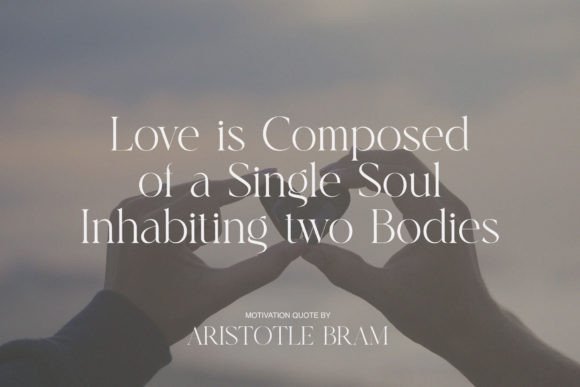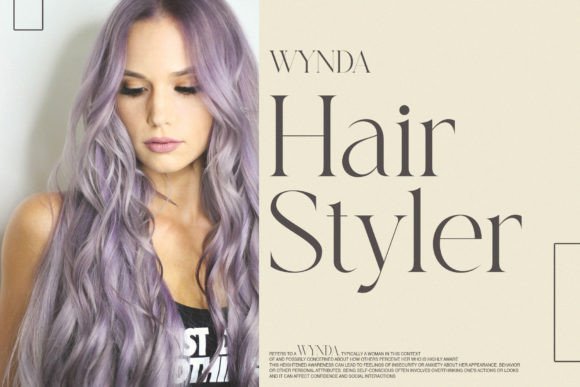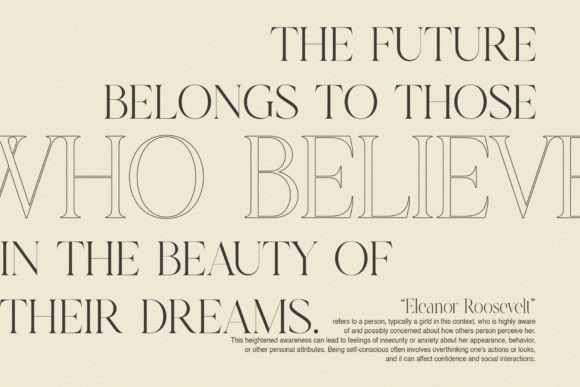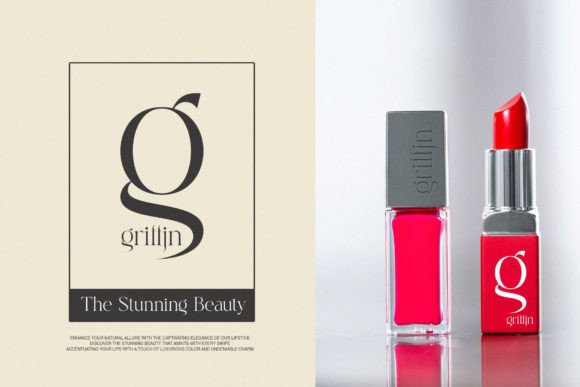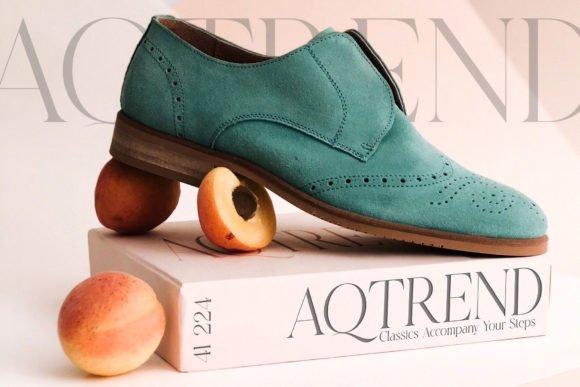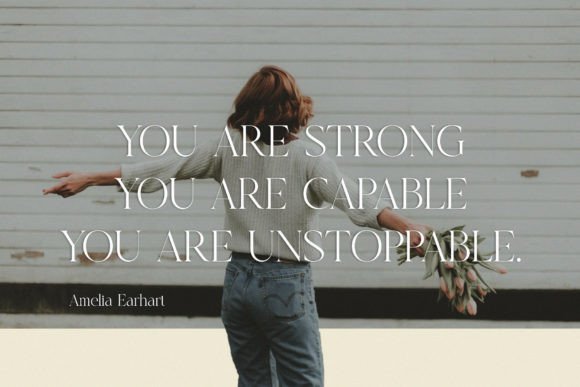
Introduction to Manuella Font
Have you ever been stuck in front of a blank canvas, staring at a design project that’s begging for inspiration? I’m sure we’ve all been there. But what if I told you that there’s a secret to unlocking your creative potential, and it’s just a font away? Enter the stunning Manuella Font, a beautiful serif typeface that’s about to become your new design BFF.
As a designer, you know that the right font can make all the difference between a good design and a great one. And that’s exactly why we’re excited to introduce you to the Manuella Font, a high-quality design resource that’s perfect for any creative project. Whether you’re working on a brochure, a video, or an advertising campaign, this elegant font is sure to impress.
Key Features of Manuella Font
- High-quality design resource with a unique, elegant touch perfect for creative projects.
- Designed with a modern aesthetic, making it suitable for a wide range of creative projects, from branding to publishing.
- Includes a comprehensive set of characters, including uppercase and lowercase letters, numbers, and punctuation marks.
- Supports a wide range of languages, making it a versatile font for global creative projects.
Honest Review: Manuella Font
I recently had the chance to work with the Manuella Font, and I must say it’s been a game-changer for my creative projects. The high quality of this design resource is evident from the first glance. The clean, elegant design makes it perfect for a variety of applications, from headings to body text.
- ✨ The transparent background makes it easy to customize and combine with other design elements.
- ✨ The font is highly legible, making it perfect for long blocks of text.
- ⚠️ The font may not be suitable for very large or very small text sizes, as it can become difficult to read.
- ⚠️ The font does not come with a wide range of styles or weights, which may limit its versatility.
Overall, I’m really impressed with the Manuella Font. Its high quality and flexibility make it a valuable addition to any designer’s toolkit. While it may have some limitations, I think it’s well worth the free download – and I’ve already started using it in several of my current projects.
Manuella Font is perfect for a variety of creative projects, including logos, branding materials, and marketing materials. Its high-quality design and transparent background make it easy to use in a range of applications, from web design to print materials.